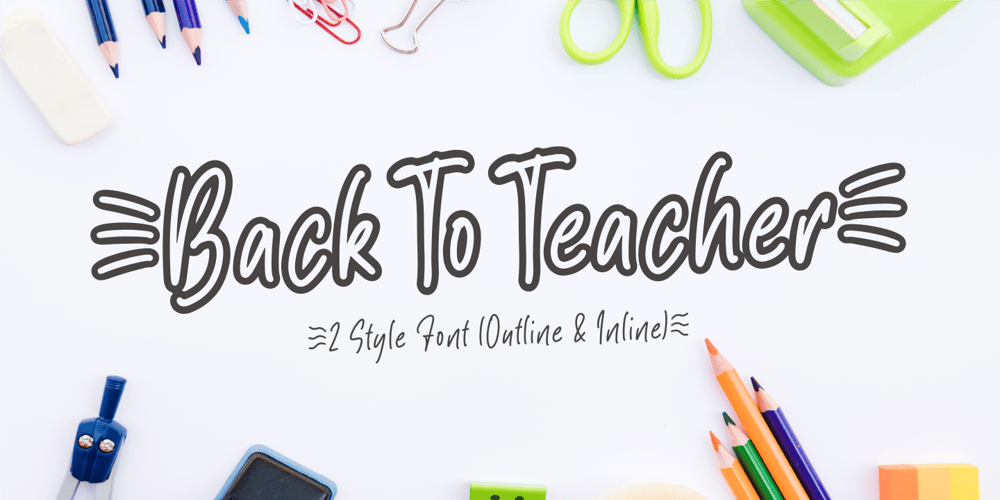
Back To Teacher Outline
Back To Teacher Outline font
Back To Teacher Outline Font Family was designed by Siti Nurjanah and published by NJ Studio. Back To Teacher Outline contains 2 styles and family package options. Hi…Thank for your visit :)Back to school (Outline & Inline) a simple handwritten font. It features fun characters that will take your projects to the next level!This font is PUA code which means you can easily access all the glyphs that are full of simple! It also features many special features including glyphs. font designs that are made for various vector designs, printing such as digital wedding blogs, online shops, social media, while printing can be used in the field of product clothing, accessories, bags, pins, logos, business cards, watermarks and many others …so it can make your product look simple and attractive, and also Multilingual support!!!Happy design …